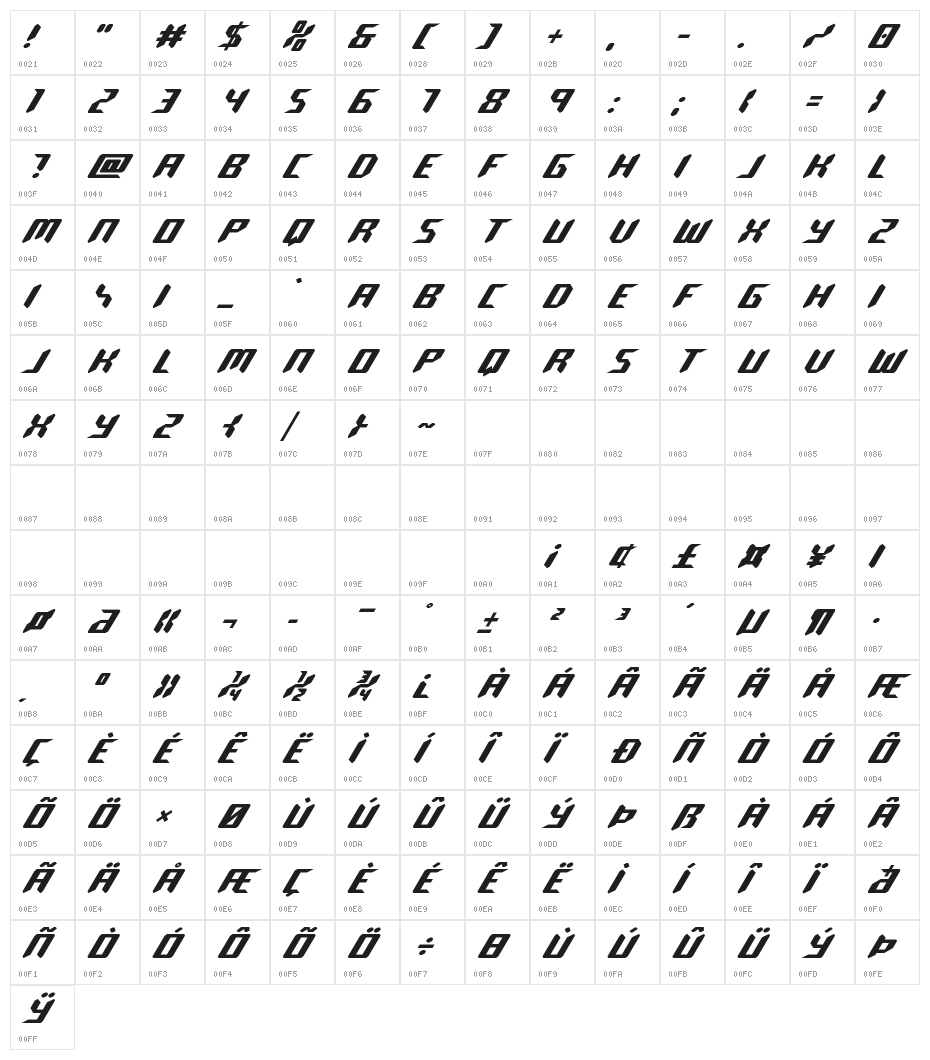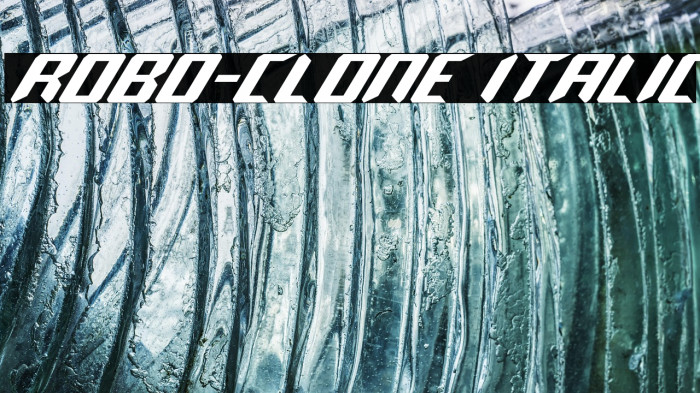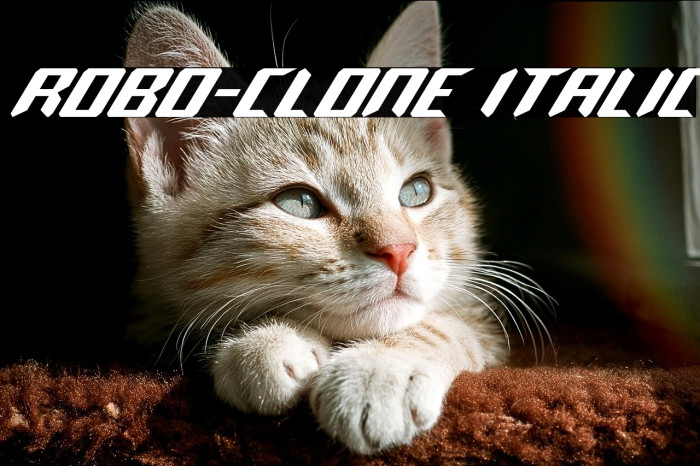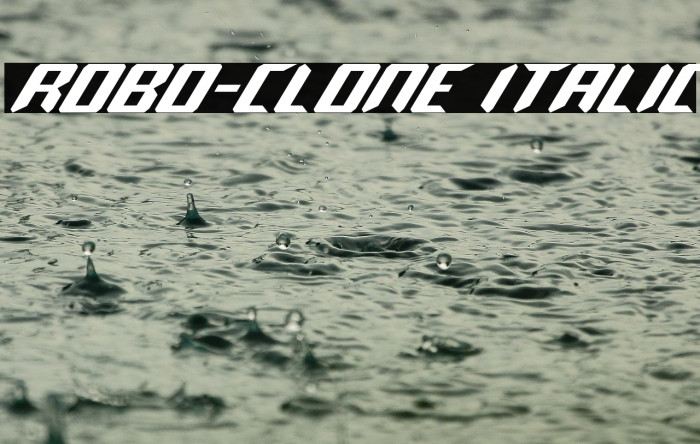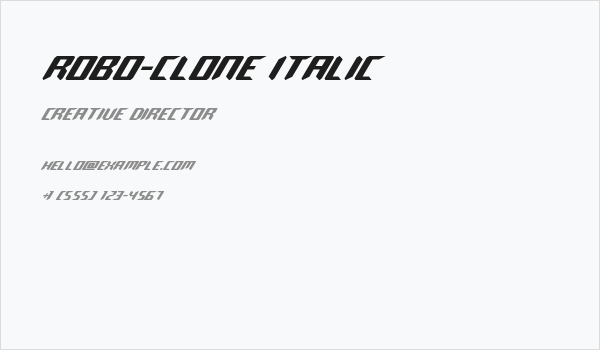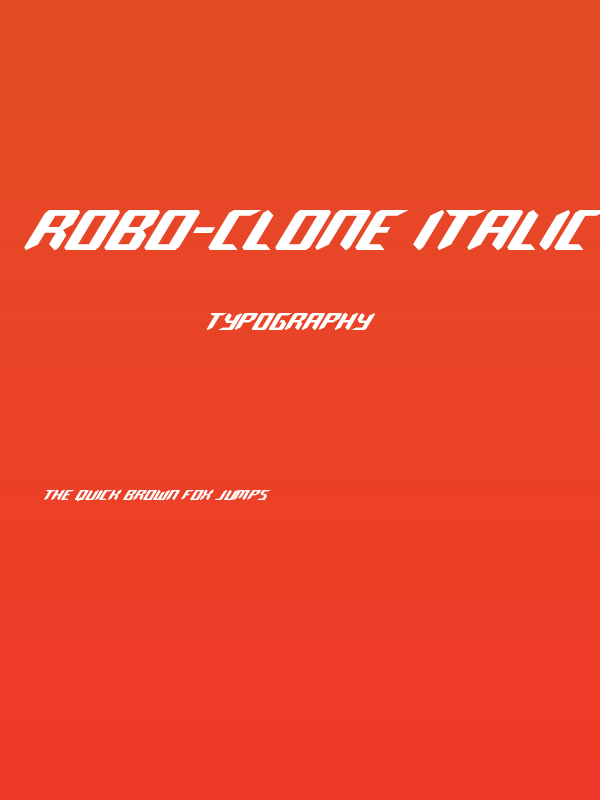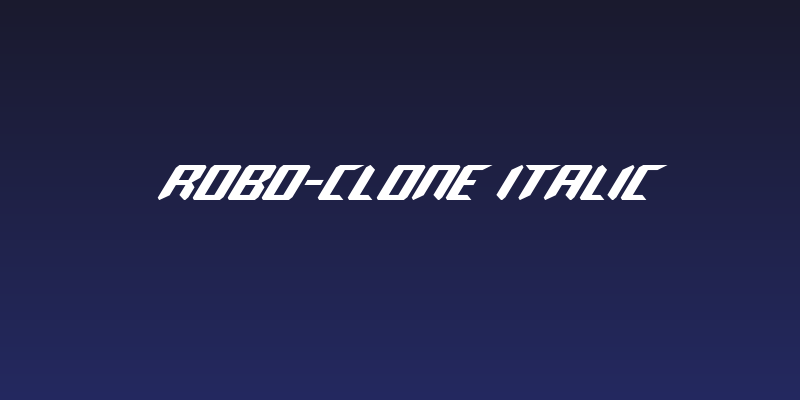
Robo-Clone Italic Font
Robo-Clone Italic Description
This font features a bold, futuristic design with sharp, angular lines and a distinct italic slant. The characters are tightly spaced, giving it a compact and dynamic appearance. The uppercase and lowercase letters maintain a consistent style, emphasizing geometric shapes and a sense of motion. The numbers and special characters follow the same design principles, ensuring uniformity across the typeface. The high contrast in stroke thickness adds to its striking visual impact, making it ideal for attention-grabbing applications.
Overall StyleFuturistic
Proposed ProjectsIdeal for sci-fi themed projects, technology branding, video game titles, and dynamic posters.